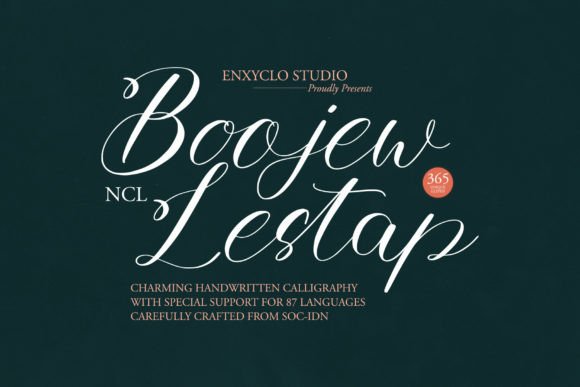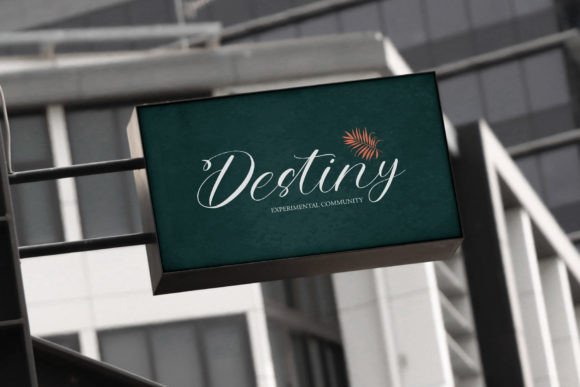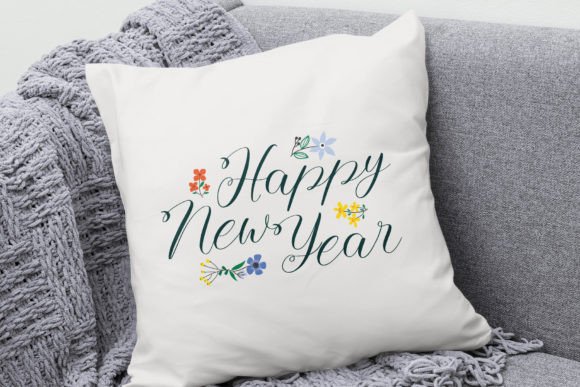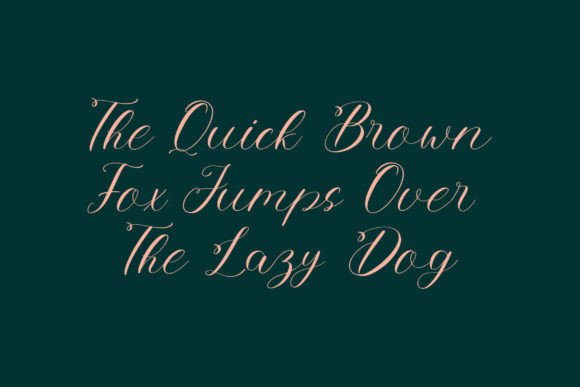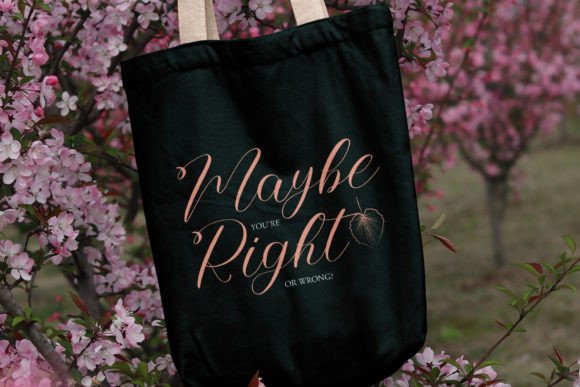
About Boojew Lestap Font Download
The Boojew Lestap Font Download is a unique and charming handwritten calligraphy script that combines modern style with timeless elegance. With its flowing strokes and stylish appeal, this font was crafted to stand out in both large and small point sizes. Whether you are designing posters, logos, or magazines, Boojew Lestap ensures that your text captures attention.
A Handwritten Script with Style and Grace
Boojew Lestap blends the beauty of calligraphy with the simplicity of modern handwritten fonts. Unlike standard scripts, it feels fresh while still maintaining classic elegance. As a result, this Boojew Lestap script font is perfect for projects that need both creativity and refinement.
Perfect for Headlines and Titles
Large text demands a typeface that is bold, stylish, and memorable. The Boojew Lestap Font shines in headlines, billboards, and posters. Its flowing letters create a strong visual impact. Moreover, it maintains clarity even in smaller sizes, making it a versatile addition to any font collection.
Great for Branding and Logos
Brand identity often depends on typography, and Boojew Lestap is an excellent choice. The Boojew Lestap handwritten font brings elegance to business logos, product packaging, and marketing materials. In addition, it conveys professionalism while keeping a creative and approachable feel.
Elegant Use in Magazines and Websites
When designing magazines, blogs, or websites, style matters. The Boojew Lestap Font Download works beautifully for editorial layouts, titles, and feature highlights. It gives content a modern-classic look that keeps readers engaged. Therefore, it is a smart choice for digital and print designers alike.
Perfect for Posters and Creative Projects
Designers often need fonts that make posters and artistic projects stand out. For example, Boojew Lestap works well on t-shirts, event flyers, and social media graphics. This handwritten calligraphy script adds flair and uniqueness, ensuring that your work leaves a lasting impression.
Why Designers Choose Boojew Lestap Typeface
Many handwritten fonts lose readability when scaled down, but Boojew Lestap was designed to remain stylish at all sizes. The Boojew Lestap handwritten script blends beauty with functionality, making it a reliable option. In addition, it adds elegance to creative projects without compromising clarity.
Add Elegance to Your Work Today